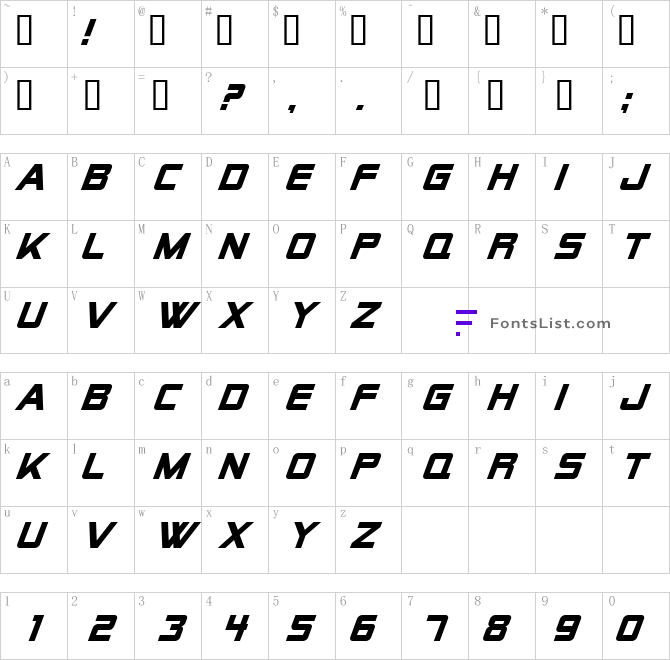
- Font Name:Alien Encounters Solid
Alien-Encounters-Solid-Bold-Italic.ttf is a very beautiful artistic font, Alien-Encounters-Solid-Bold-Italic.ttf is widely used in the design and printing of various books and pictures,Alien-Encounters-Solid-Bold-Italic.ttf has a strong visual impact,Alien-Encounters-Solid-Bold-Italic.ttf is a commonly used font in newspapers, magazines and books, and is used in posters, e-commerce Poster design, store design, logo design, font design and other fields.Alien-Encounters-Solid-Bold-Italic.